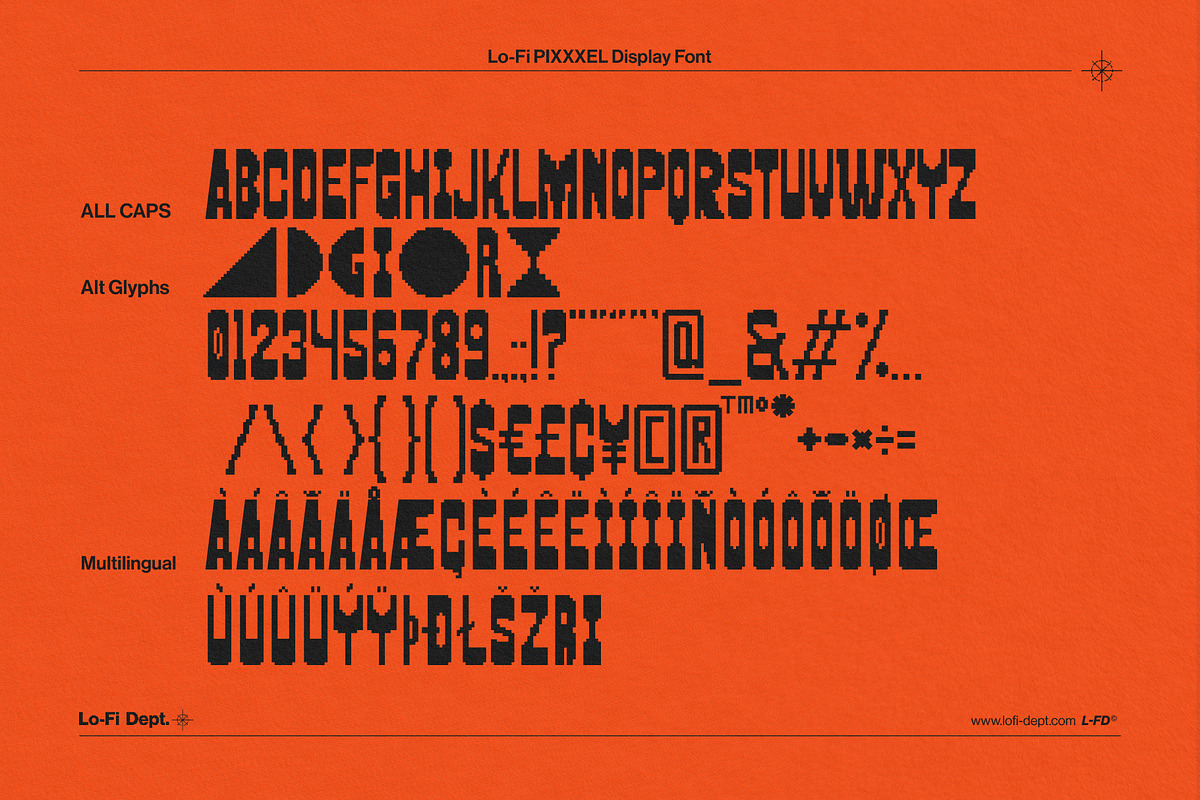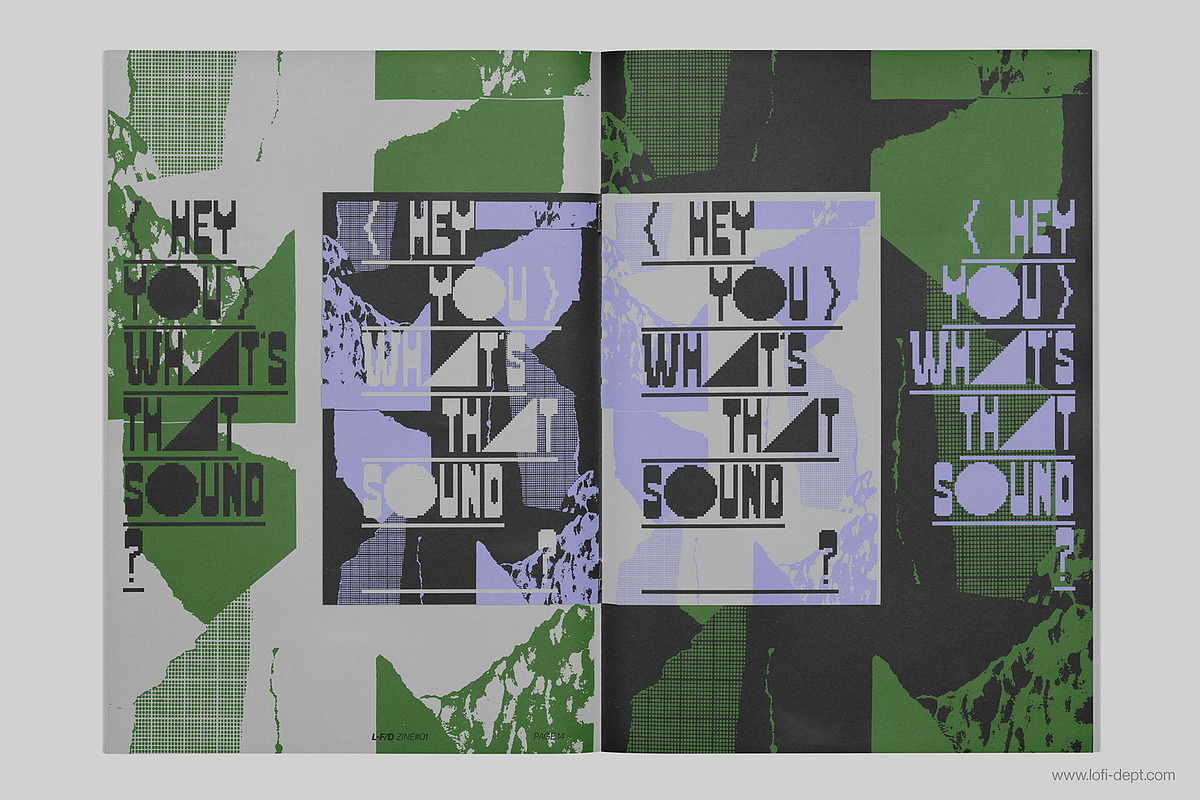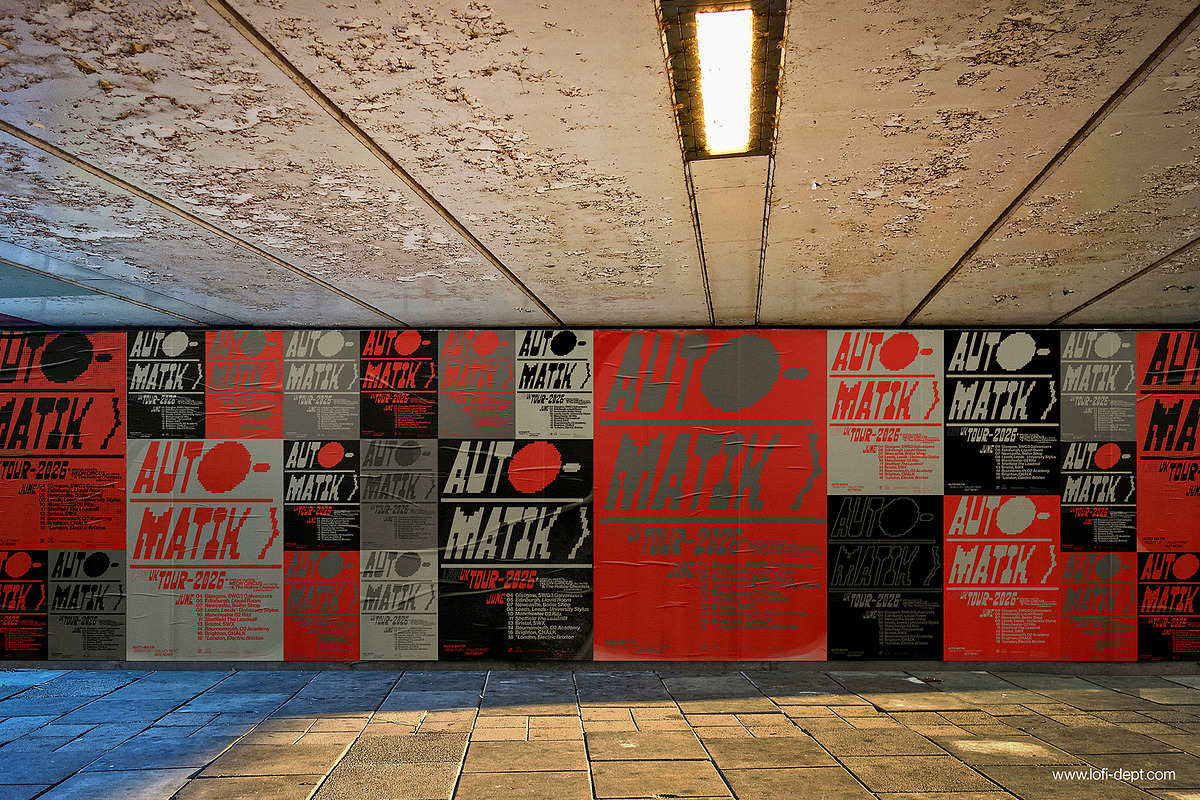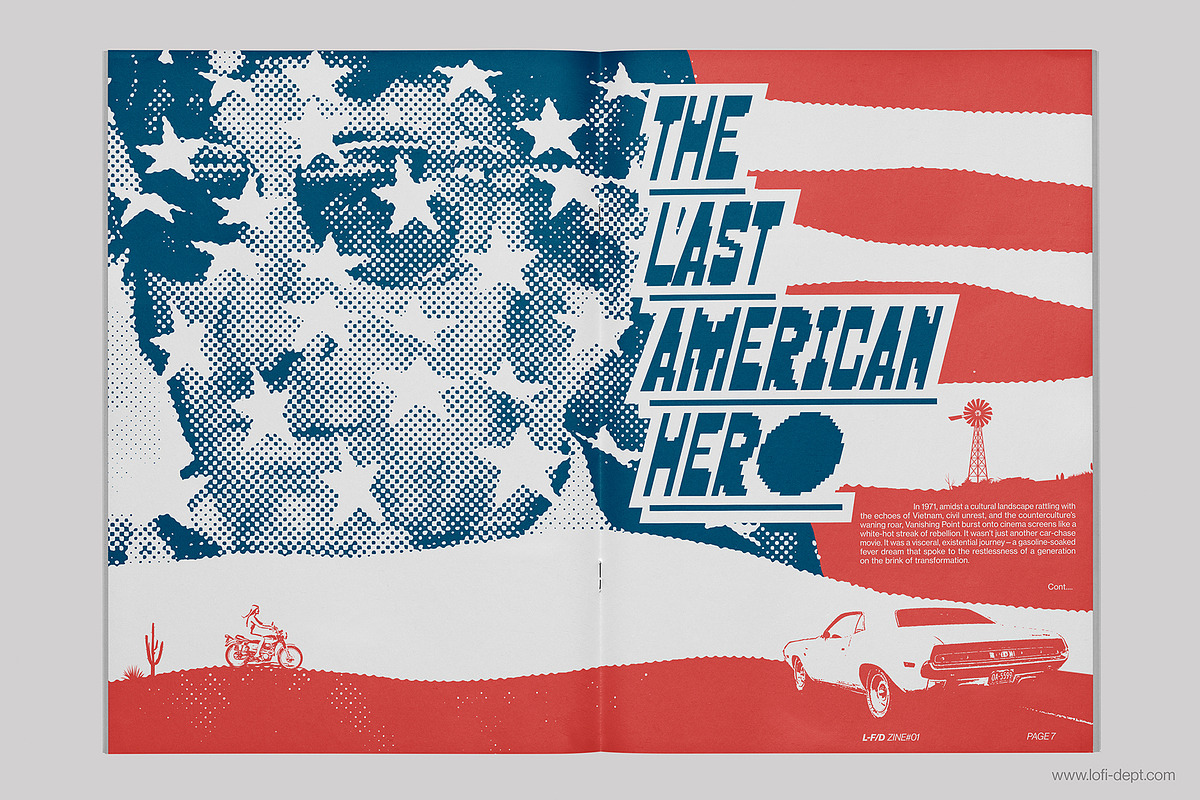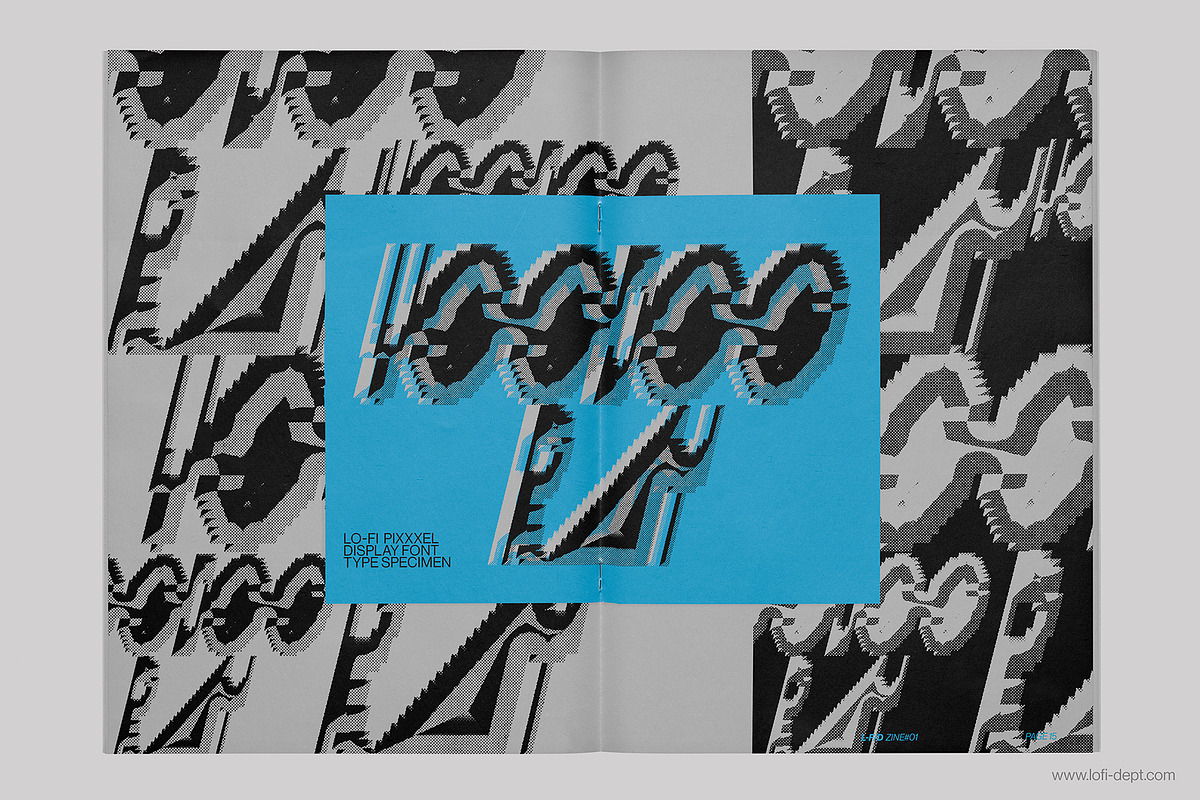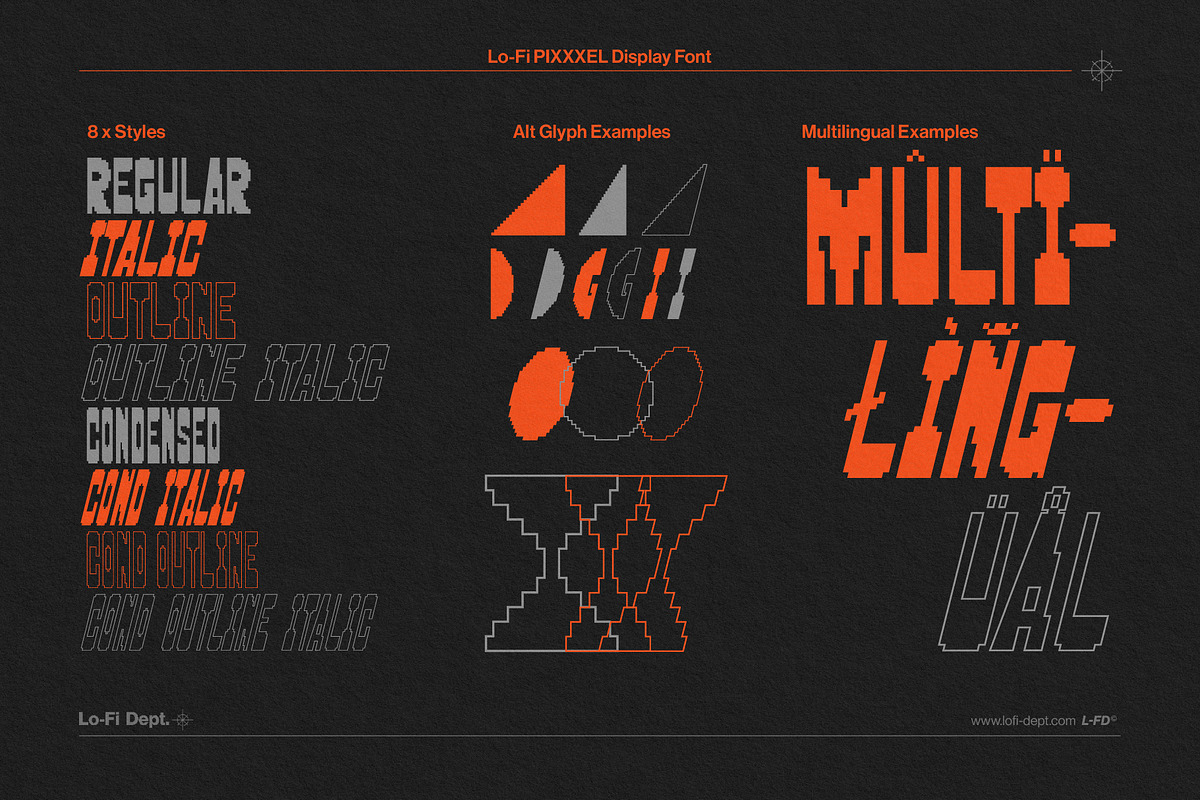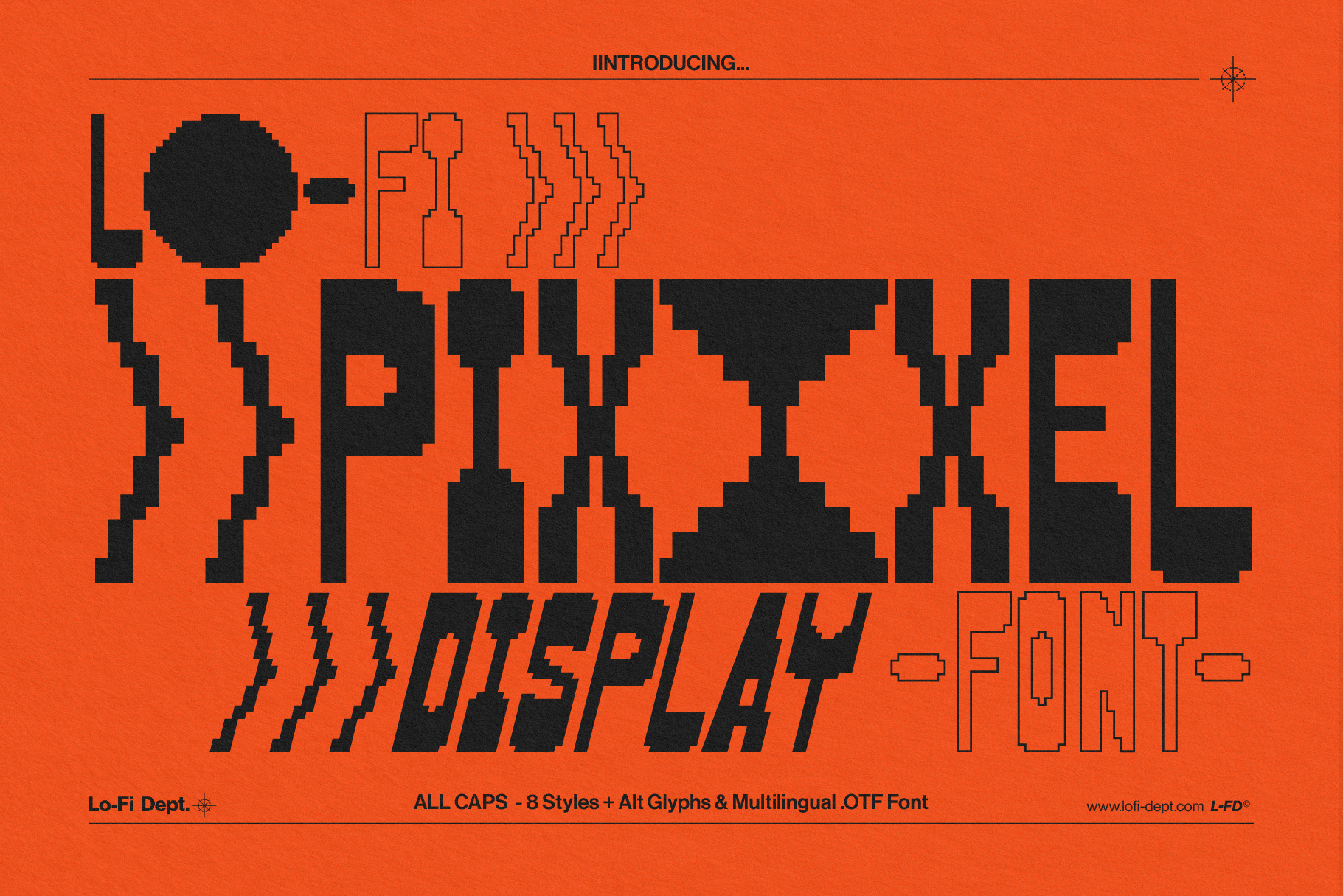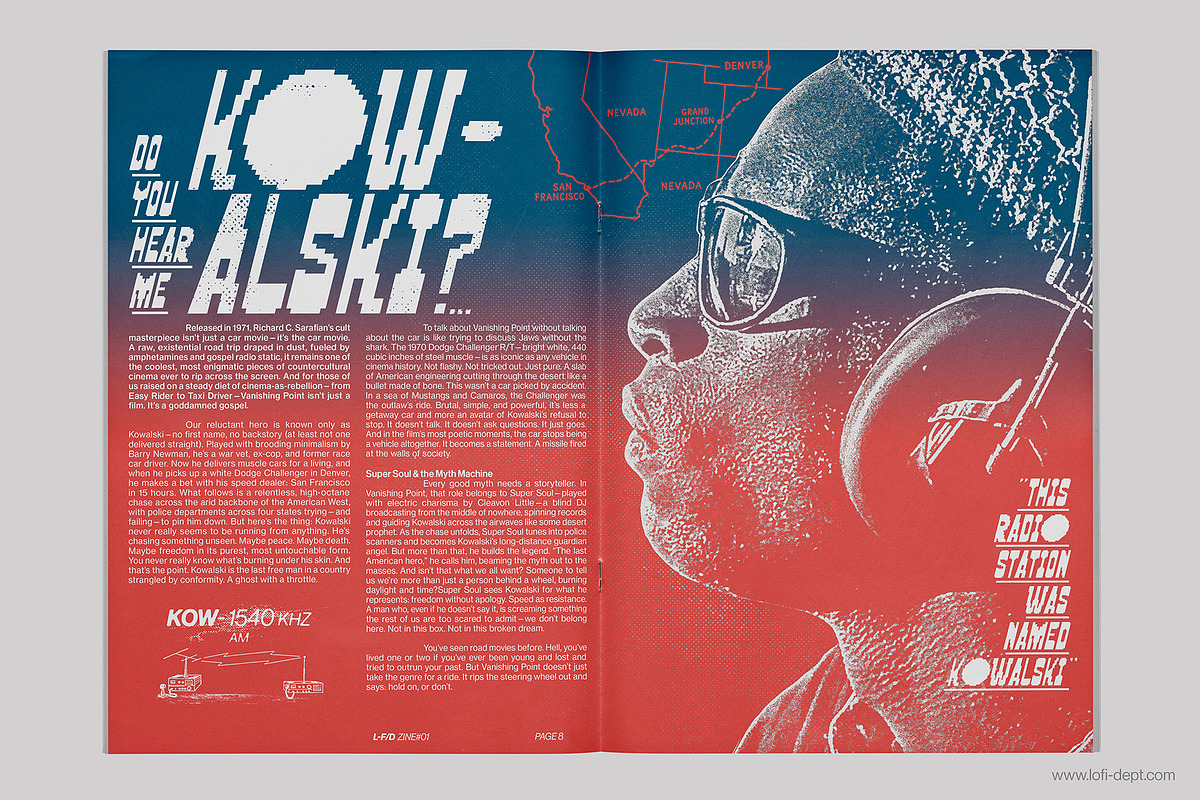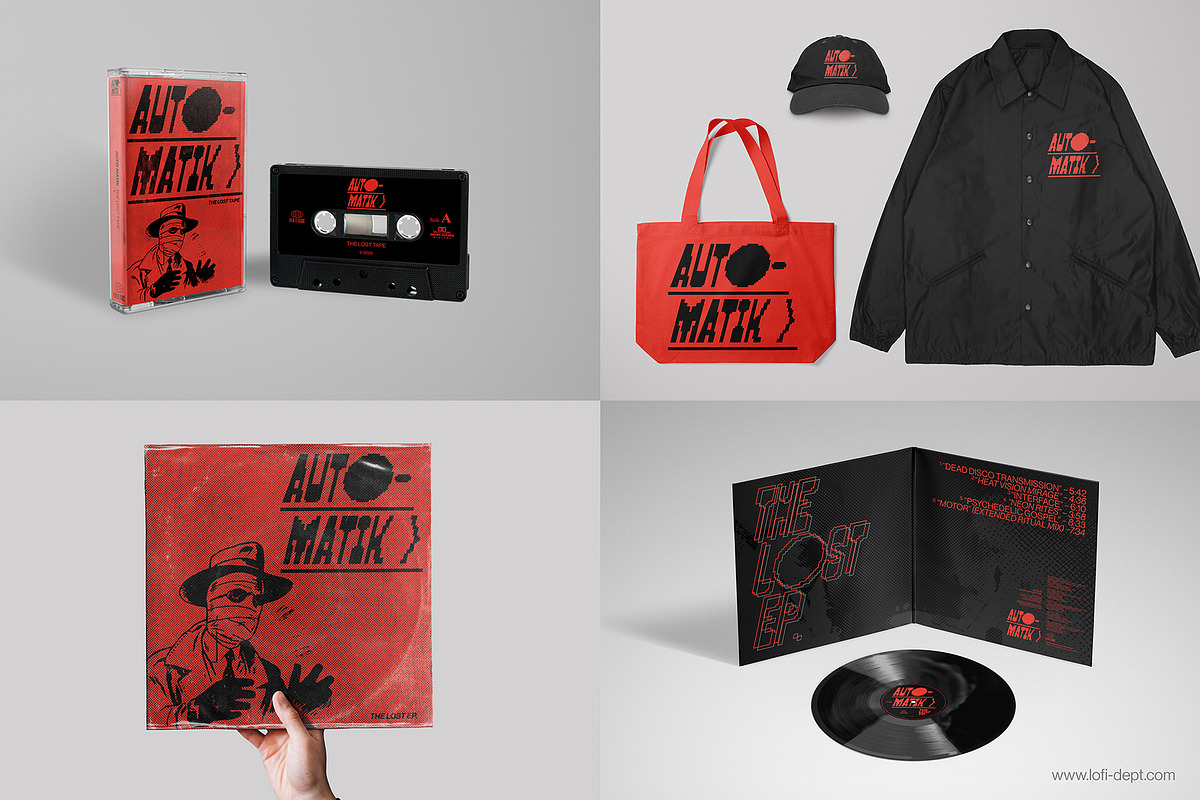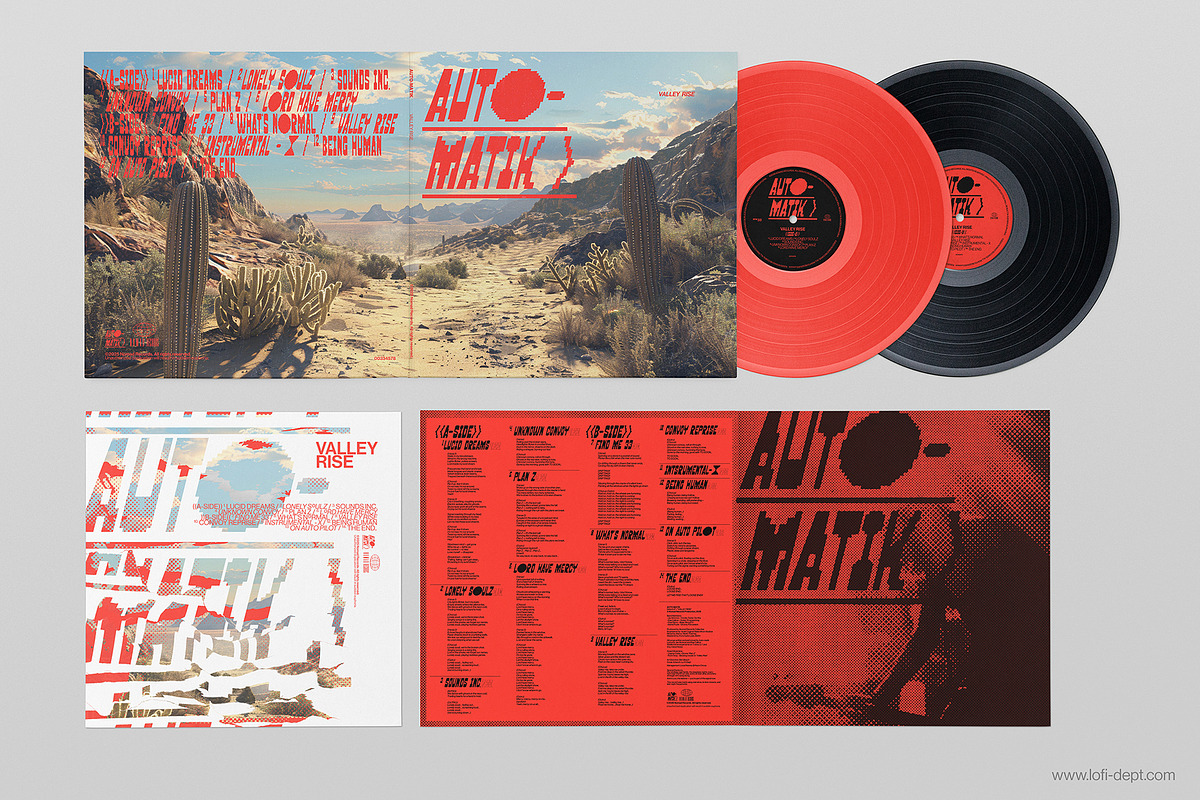
Lo-Fi PIXXXEL Display Font
o-Fi PIXXXEL is a graphic display font from the Lo-fi Dept that embodies the essence of pixel-based visuals and early computer graphics. Available in eight distinct styles—including italic, condensed, outline, and more—it offers a range of alternate glyphs that enhance its versatility. Bold and impactful, Lo-Fi PIXXXEL is ideal for zines, posters, and any project seeking a powerful, raw typographic expression. Its sharp, digital aesthetic captivates with a modular, bitmapped focus that stands out in any design context.
Features All Caps Display Font 8 Distinct Styles Includes Alternate Glyphs Supports Multilingual Characters